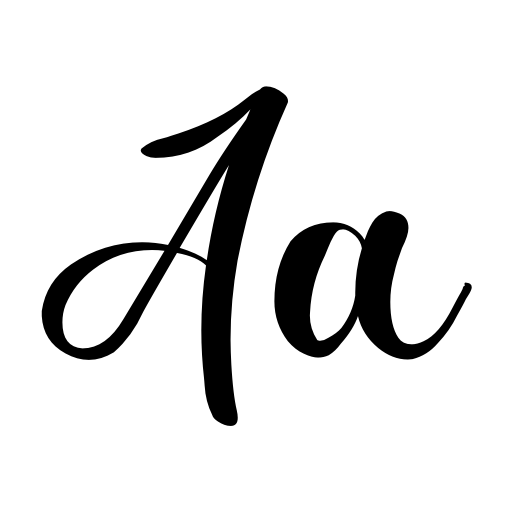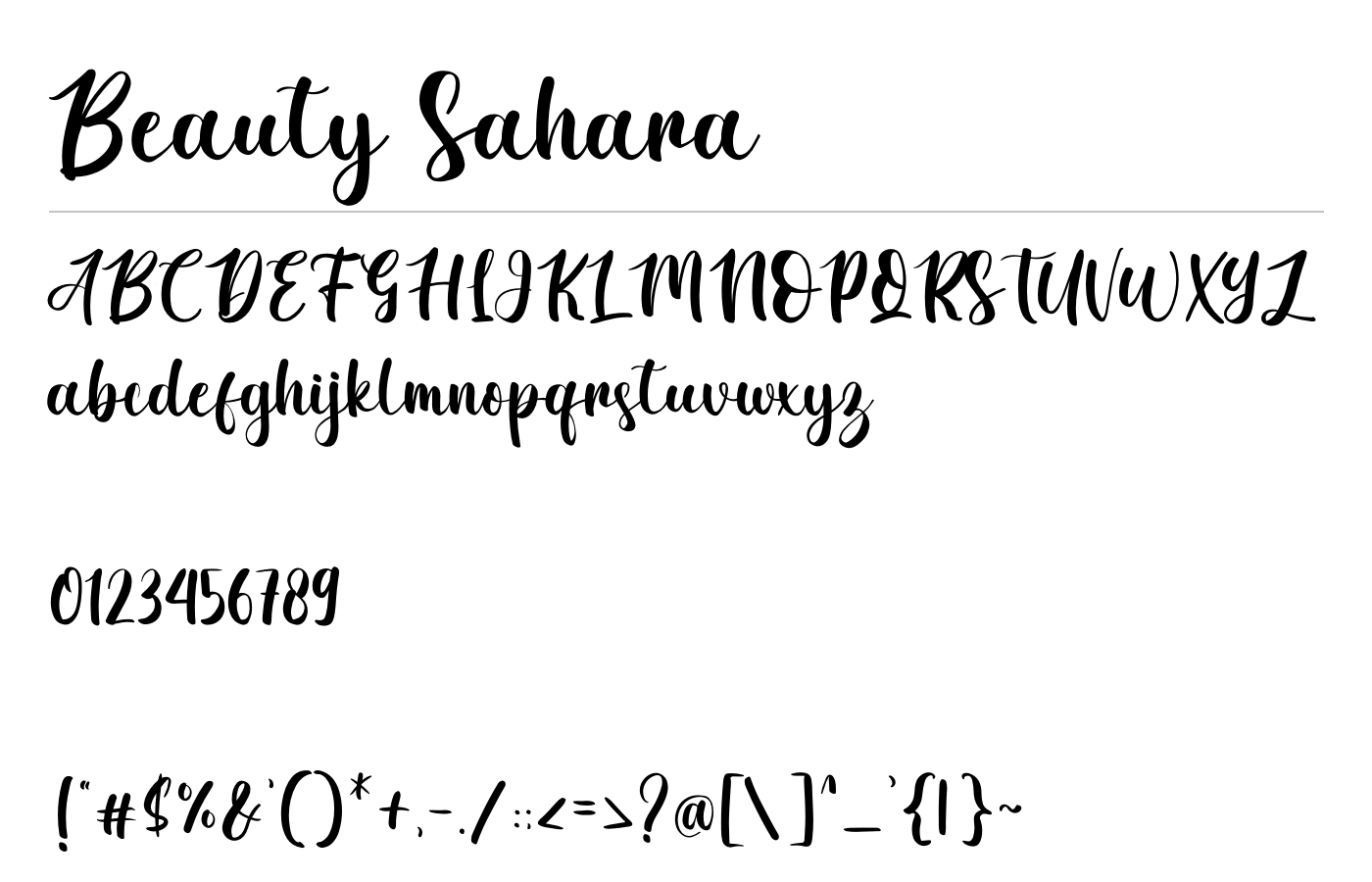
Beauty Sahara is a lively and elegant script font with a smooth, flowing style and medium weight brush strokes that create a warm, inviting feel. Its playful yet refined letterforms, including distinct loops and swashes, make it perfect for creative branding, fashion, and feminine designs that want to convey charm and sophistication. This font works beautifully in headlines, logos, and invitations where a personal, handcrafted touch is desired.
Beauty Sahara Font
About Beauty Sahara Font
| Font family | Beauty Sahara Font |